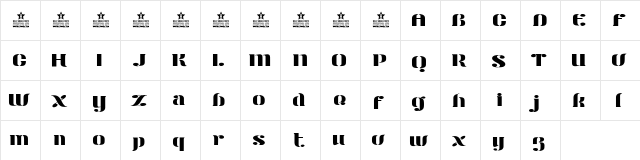
Modern Stencil Personal Use Regular
Design Context for Modern Stencil Personal Use Typeface
Modern Stencil Personal Use has the rough pragmatism of spray-painted stencil signage, adding a raw, street-level authenticity to designs.
Ideal for industrial branding, streetwear, military-adjacent aesthetics, and urban signage projects.
Pro Tip: Pair Modern Stencil Personal Use with raw, utilitarian design elements — exposed concrete textures, flat colour, and minimal ornamentation suit it well.